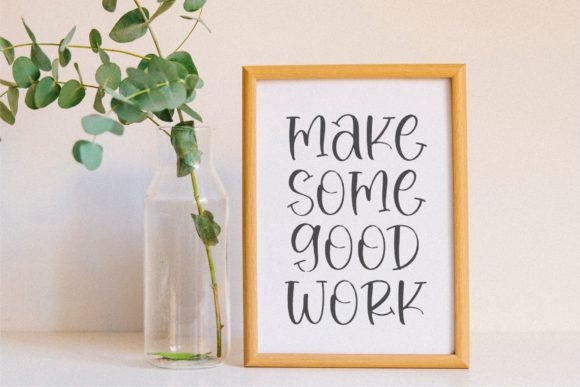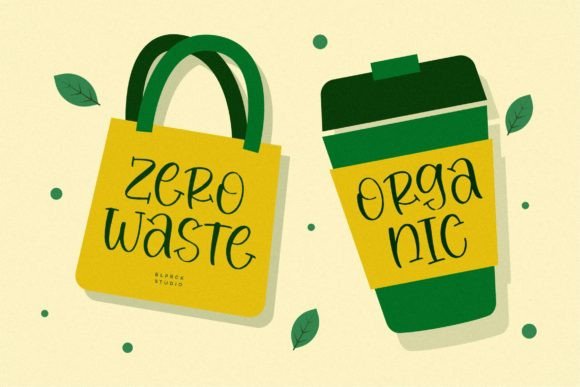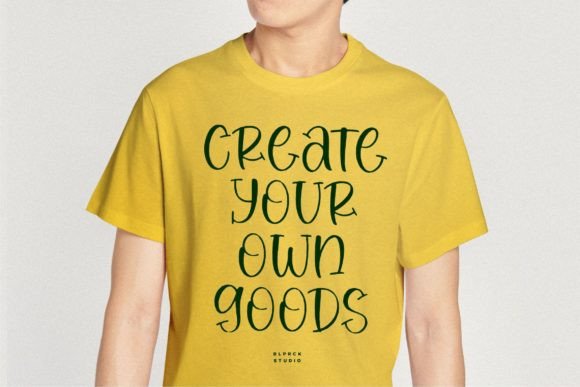
Introduction to Roasted Lemon Font
Have you ever found yourself in a creative rut, struggling to find the perfect font to elevate your latest project? I know I have! It was during one such moment that I stumbled upon the Roasted Lemon Font, and it completely transformed my design process.
This gorgeous Handbrushed Font is not only a treat to the eyes but also an incredibly versatile design resource. Whether you’re working on a free download project, a high-quality presentation, or a simple greeting card, the Roasted Lemon Font has the potential to take your creative project to the next level.
With its transparent background and beautiful, hand-painted feel, this font is a must-have for any designer looking to add a personal touch to their work. And the best part? It’s now available for you to download and use in your next creative project!
Key Features of Roasted Lemon Font
- Unique and creative font design, perfect for adding a touch of elegance to any project.
- Transparent background, allowing for easy layering and manipulation in creative projects.
- Designed specifically for use in graphic design, digital art, and other creative endeavors.
- Perfect for use in logos, branding, and other design elements where a distinctive and eye-catching font is required.
Honest Review: Roasted Lemon Font
As a designer, I’m always on the lookout for high-quality design resources that can elevate my creative projects. Recently, I had the chance to work with the Roasted Lemon Font, and I must say it’s been a game-changer.
Here are some things that work well: ✨ The font’s modern and sleek design makes it perfect for a variety of projects, from branding to digital products. ✨ The transparent background allows for seamless integration with any design element, giving me more creative freedom. ✨ The font is available for free download, making it an excellent resource for designers on a budget.
However, there are a few limitations to consider: ⚠️ The font’s versatility can sometimes make it feel a bit generic. ⚠️ The font family is relatively small, which may limit its use in more complex design projects.
Overall, I’m impressed with the Roasted Lemon Font. It’s a solid addition to any designer’s toolkit, and its free download makes it an excellent resource for designers of all levels. Whether you’re working on a branding project or a digital product, this font is definitely worth checking out.
- Perfect for branding, digital products, and other creative projects
- Transparent background for seamless integration
- Modern and sleek design
The Roasted Lemon Font is suitable for a wide range of design projects, including: social media graphics, posters, flyers, brochures, magazines, websites, presentations, and documents. Its unique style and high-quality design make it an excellent choice for creative projects.